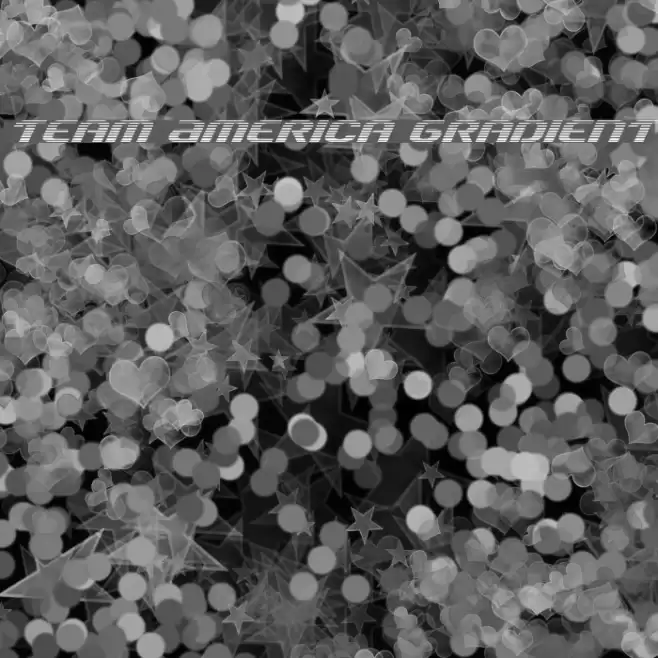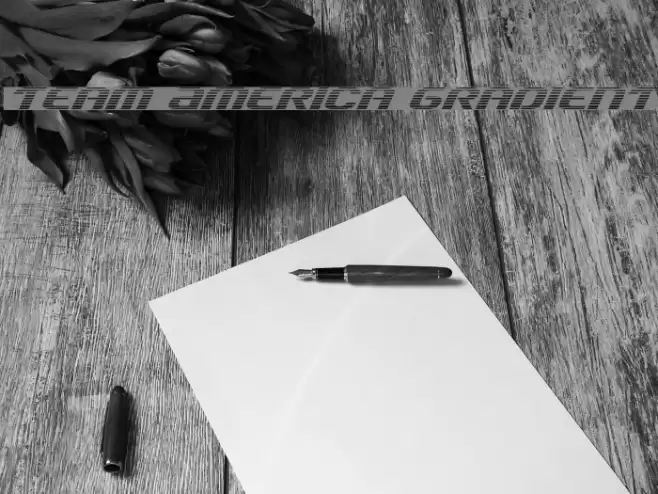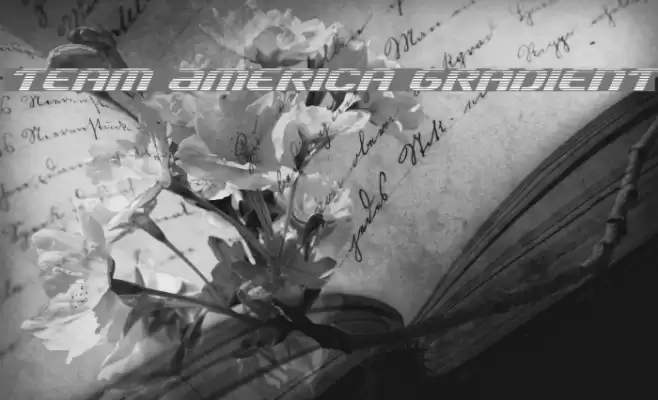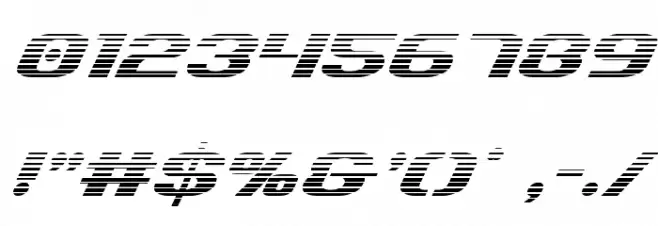
Team America Gradient Font
Team America Gradient Description
This font features a bold, dynamic style with a distinct gradient effect created by horizontal lines running through each character. The uppercase and lowercase letters maintain a consistent slant, giving the typeface a sense of motion and speed. The numbers and special characters follow the same design, ensuring uniformity across all glyphs. The overall appearance is modern and eye-catching, suitable for projects that require a strong visual impact. The characters are slightly condensed, enhancing the compact and sleek look of the font.
A bold, dynamic font with a gradient effect and slanted characters, conveying motion and modernity from Uncategorized fonts.
- Proposed Projects: Ideal for sports branding, automotive advertisements, video game titles, and dynamic posters.